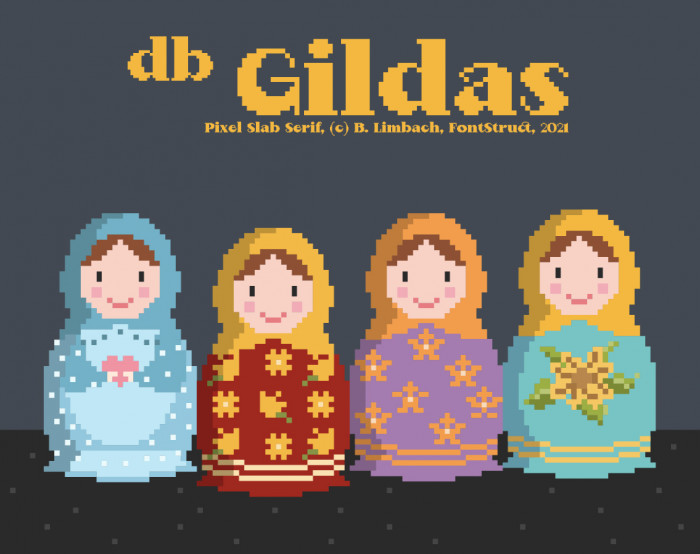
I love both Gildas ❤️, but I prefer this pretty curvy blacky.
@beate - I agree with @elmoyenique.  'Regular' is my favorite of the two.  :^)
Heavy serif pixel font with high contrast. I wouldn't call it a slab serif because the E, F, L, T, Z are not slab serifs; and the C, c, S, s, € are completely devoid of serifs. It doesn't really matter, however, as long as the letters work nicely together. And they do. I would consider the following: the axis of C, G, c, e, 0 (zero), € is backward leaning, whereas the other letters have a perpendicular axis. They don't look good next to each other. The colon and semicolon are not at the same level. Diacritical marks: well-crafted with good proportions in general. The tilde could be a little bigger. The Umlaut, well, it has quarter-size pixels. These are minor things. The font itself looks very impressive. I see some resemblance to Bodoni and, perhaps Cooper. I may be wrong. The third ingredient of the blend is undoubtedly Beate-style. 10/10
Lovely pixel design, especially the "C/c"
Spontaneously, I had also thought more of a serif, but most of the serifs are more like a slab. I am also not happy with the trema. It looks too strong next to the other diacritics... There is definitely room for improvement.
A font with a very pleasant, homely character. It's like a font like this can be seen on a Merry Christmas sweater (and the pixel size allows it). The only thing that confuses me is the letter M, with a serif at the bottom, as if it were an inverted W.
Congratulations on the TP! Have you drawn those lovely pixel matrioskas? BTW, I thought I appreciated a bit more space than usual on the right side of O, Q and g. Also, the A is a bit skewed to the left and overlaps when it follows other letters (R, K, M ...), IMHO, although this may have been done on purpose, Maestra.
They are actually vector drawings, but I simplified them and reassembled them from individual squares in the style of the font.
Yes, the A is intentionally moved to the left. V, W, Y were too. I will definitely change that, especially since I decided to still continue working on the kerning.
What a beautiful pixel font! I love the contrast, the ligatures and of course the illustration.
Beautiful serif!!
Looks like Cooper Black and Times New Roman mixed
Ik this is a serif font, but it says slab
did you forget to color the top left part of the lowercase "k"?